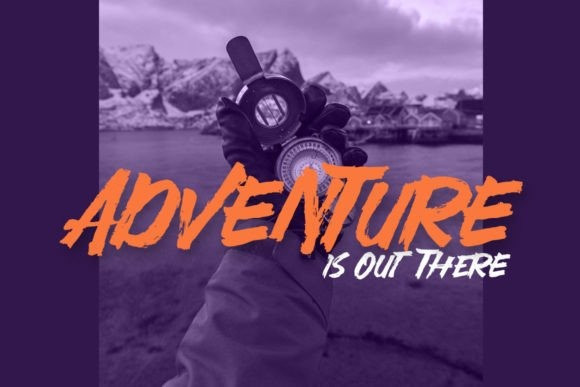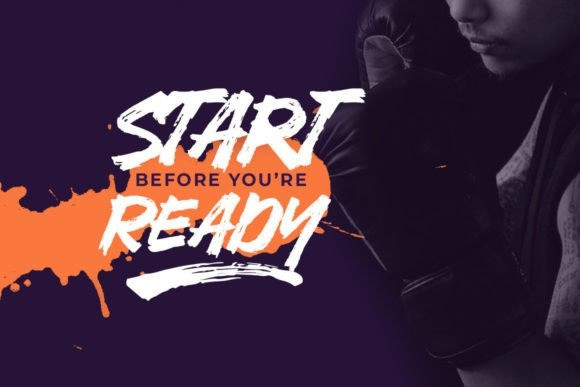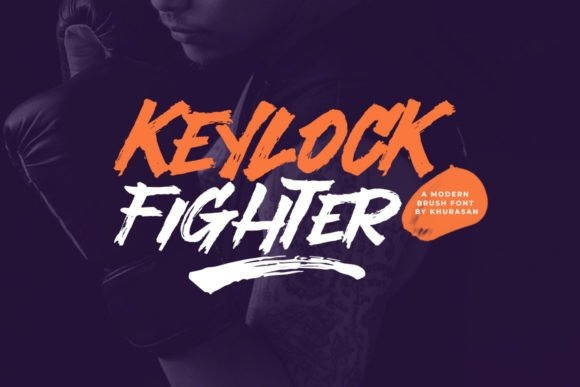
Keylock Fighter Font
Keylock Fighter Font is a modern brush font perfect for posters, logos, magazines, book covers, banners, and many more! Get this quirky display font, and use it to create lovely designs!